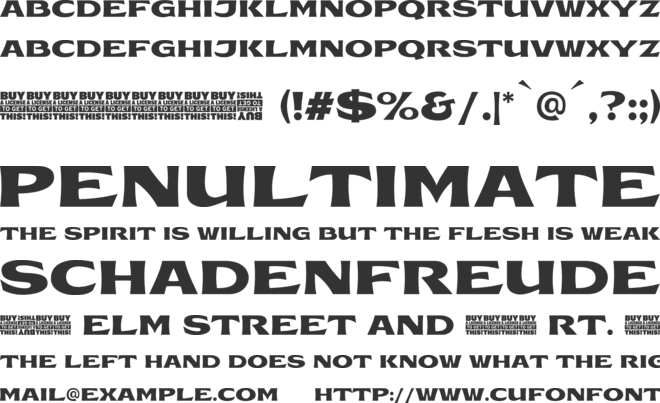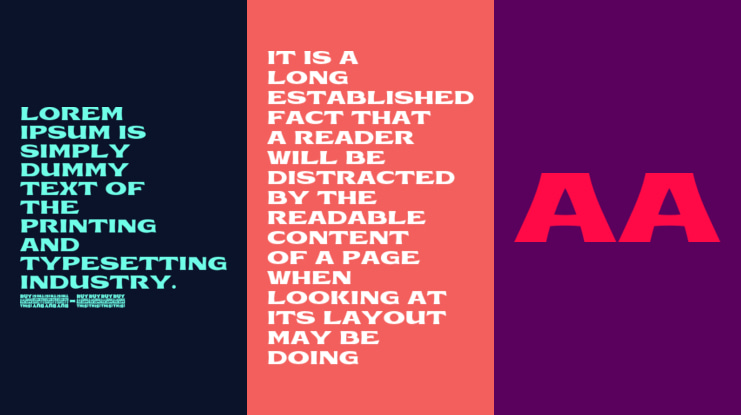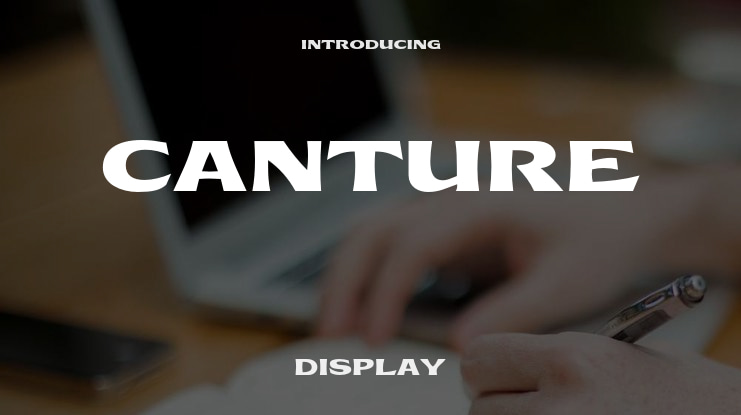
Canture Font
Canture is a striking typeface that blends raw power with refined elegance. Every curve is deliberate. Every line commands attention. Whether you're designing for a bold luxury brand, a modern editorial, or a striking digital experience, Canture delivers presence and poise in equal measure.
Built for impact yet crafted with subtlety, this font stands out in headlines while remaining graceful in detail. It’s not just typography—it’s personality.
Dare to stand out. Choose Canture.